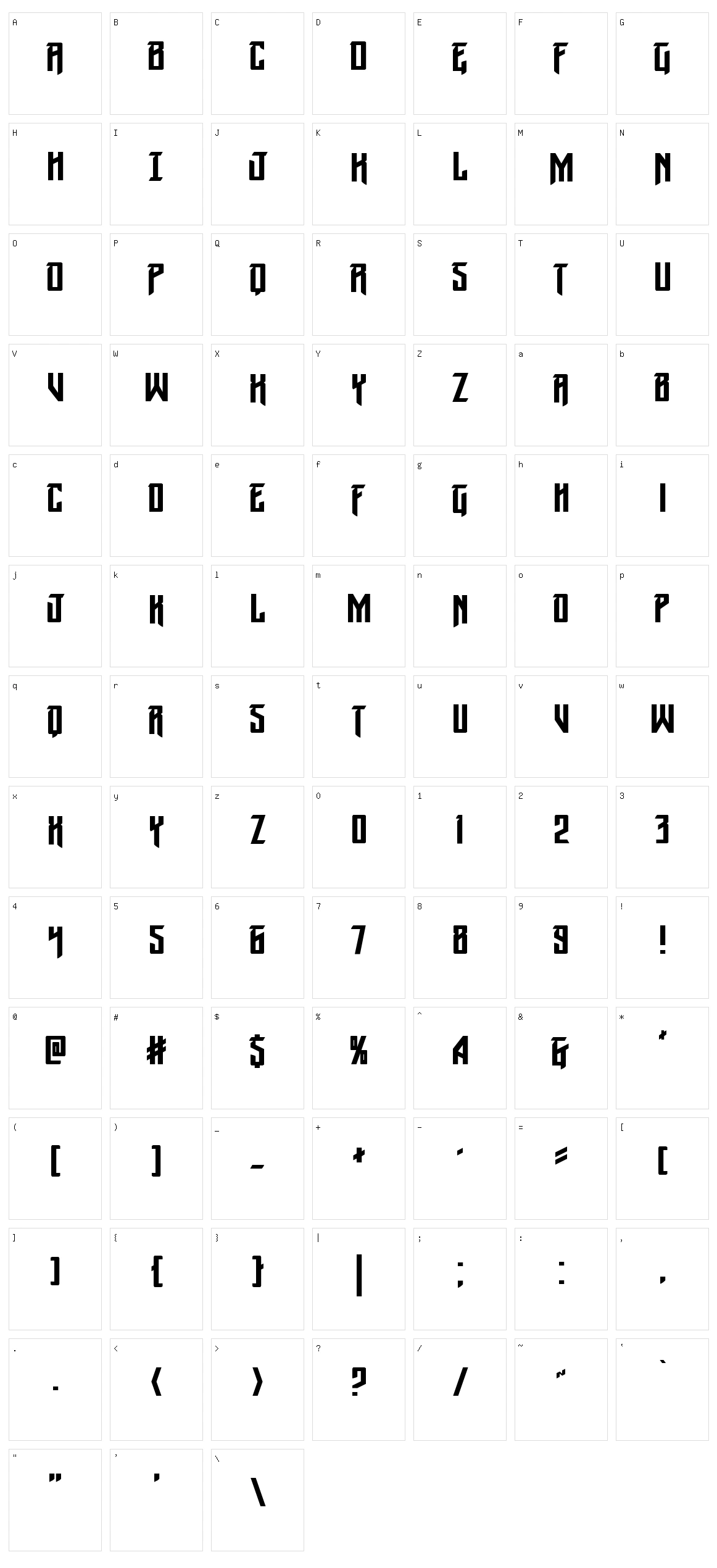
Winter Solstice
Description: The free font Winter Solstice is carefully designed by Iconian Fonts, showcasing a thoughtful balance of creativity and usability and belongs to the Gothic font family. When you download the ZIP file, it contains only 154.38 KB of font files, making it lightweight and quick to download. Please review the license details below to understand permitted usage and distribution rights. If license information is not available, we recommend using this font for personal projects only or contacting the author directly for commercial usage permissions.
This font comes with the following 11 versions: Regular, Italic, Expanded, Expanded Italic, Condensed, Condensed Italic, Outline, Outline Italic, 3D, 3D Italic and Leftalic.